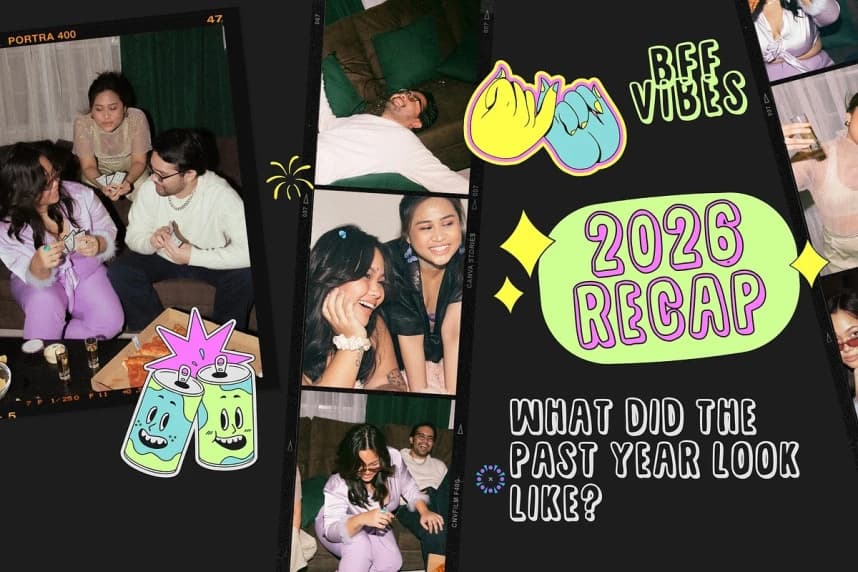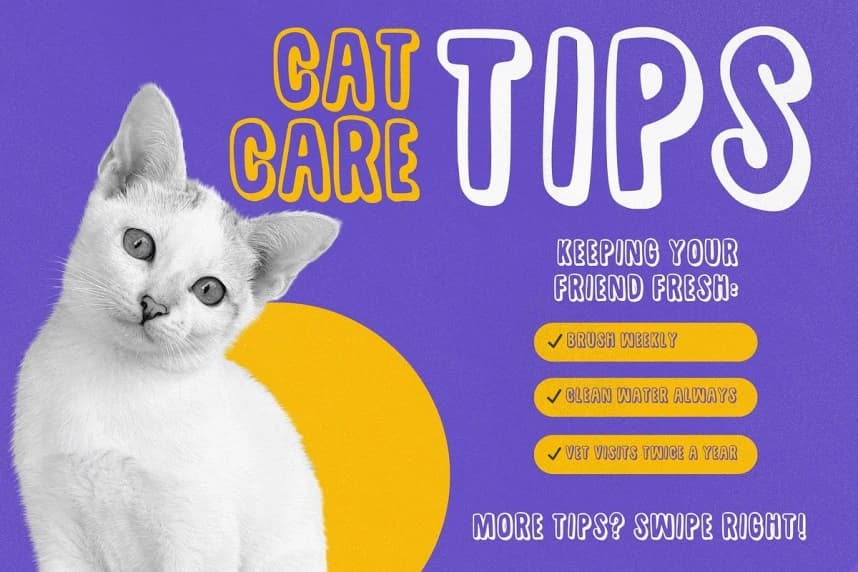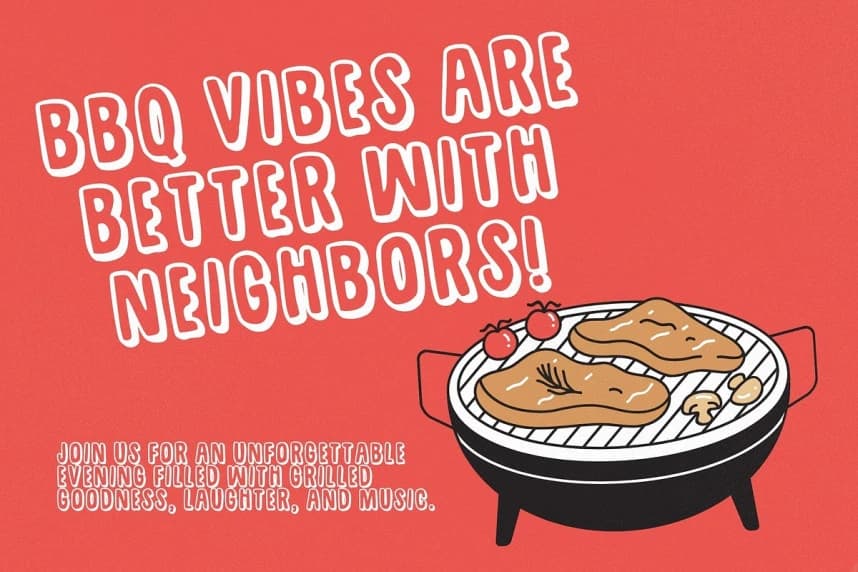
Scribbly Pop Font
Scribbly Pop Font, a cheerful condensed outline font designed to bring fun, warmth, and playful personality into your designs. With its hand-drawn scribbly style and bold all-caps structure, this typeface instantly creates an energetic and approachable visual tone.
Scribbly Pop